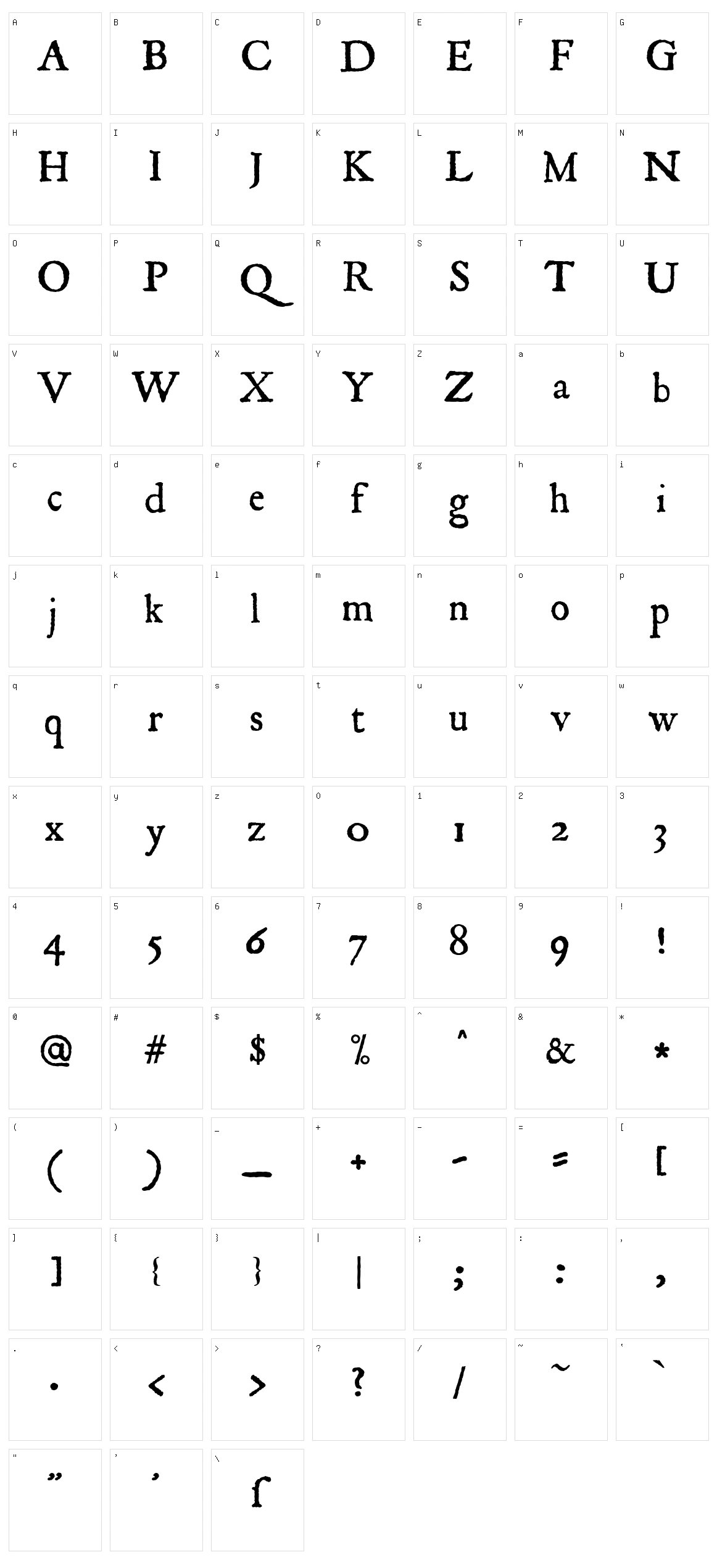
The free font Roman Antique is carefully designed by Dieter Steffmann, showcasing a thoughtful balance of creativity and usability and falls under the Eroded font style. When you download the ZIP file, it contains only 121.08 KB of font files, making it lightweight and quick to download. Please review the license details below to understand permitted usage and distribution rights. If license information is not available, we recommend using this font for personal projects only or contacting the author directly for commercial usage permissions.